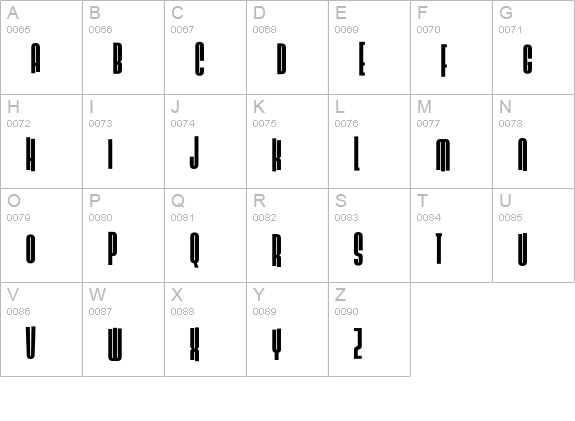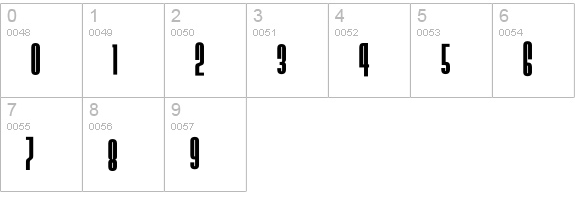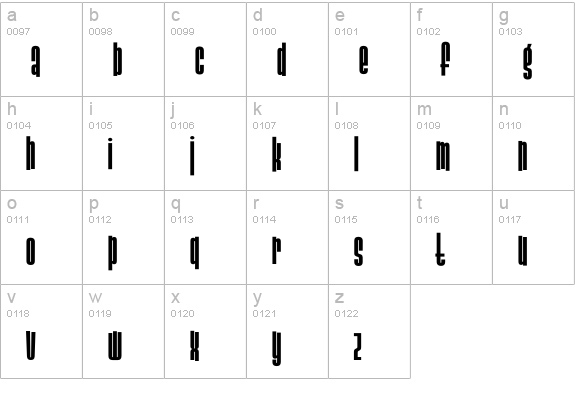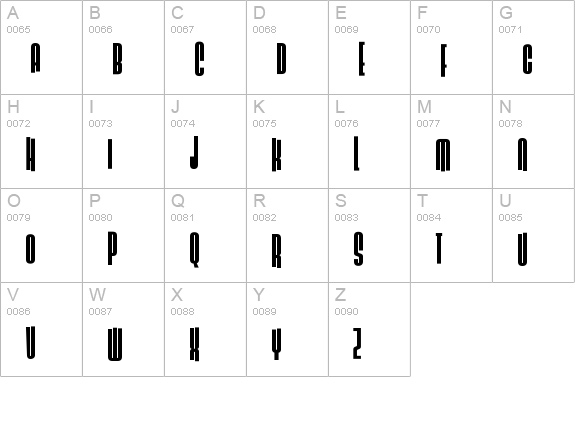
SlackCasual-Bold Font Details
SlackCasual-Bold is a strong, high-contrast variant in the SlackCasual typeface family \xE2\x80\x94 well suited to headlines, attention-grabbing titles, and strong calls-to-action.
SlackCasual-Bold is a bold and dynamic font that exudes a casual yet confident vibe. With its strong and distinctive letterforms, this font is perfect for making a bold statement in your designs. Whether you are creating eye-catching headlines, attention-grabbing logos, or impactful social media graphics, SlackCasual-Bold will add that extra touch of style and personality. What sets SlackCasual-Bold apart is not only its striking appearance but also its accessibility. This font is freely available to download at FontsMarket.com, making it easily accessible to designers, creatives, and enthusiasts alike. Its availability at no cost means that you can experiment and incorporate it into your projects without any constraints. The versatility of SlackCasual-Bold allows it to work well across a range of applications. Its bold and legible nature makes it ideal for both print and digital designs, ensuring that your message is communicated effectively. Whether you are designing posters, brochures, websites, or social media posts, this font will make sure that your content stands out. With its clean and modern aesthetic, SlackCasual-Bold brings a fresh and contemporary feel to any project. It is designed to catch the eye and leave a lasting impression on the viewer. Its ability to effortlessly blend with other fonts and elements further enhances its versatility, allowing you to create unique and visually captivating designs. So, if you are looking for a bold and stylish font that is both free and readily available, look no further than SlackCasual-Bold. Download it today from FontsMarket.com and unlock a world of creative possibilities. Embrace the freedom to design without limitations and elevate your projects with the boldness and uniqueness that SlackCasual-Bold brings.